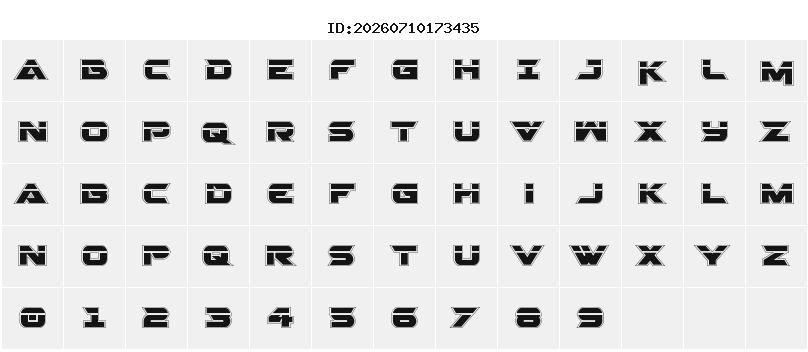
Gemina 2 Academy Laser Preview
• Font Name: Gemina 2 Academy Laser
About Gemina 2 Academy Laser.ttf
Gemina 2 Academy Laser.ttf is a modern, elegant sans-serif font designed for ultimate readability and visual harmony. Perfect for branding, headlines, web design, and print materials.